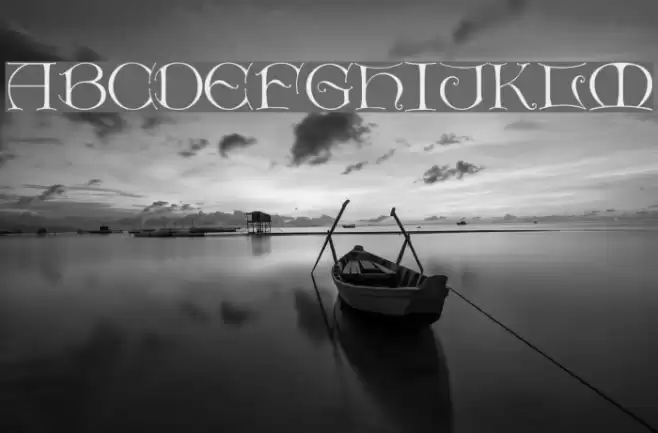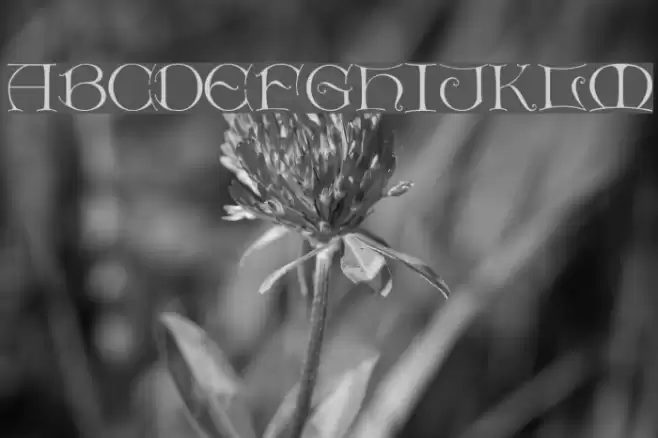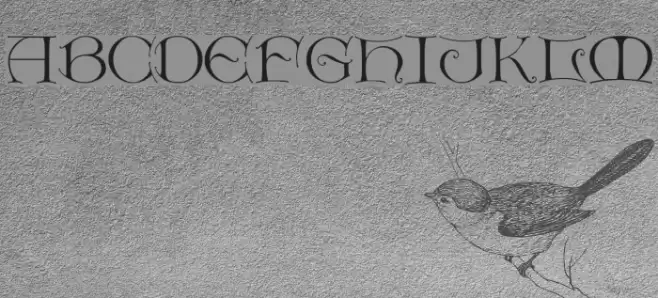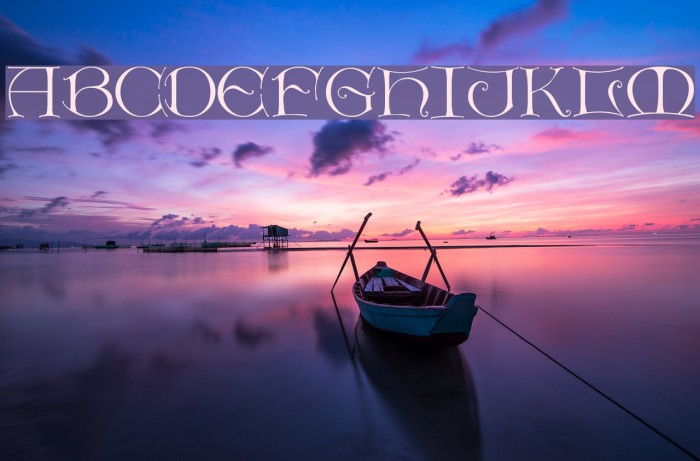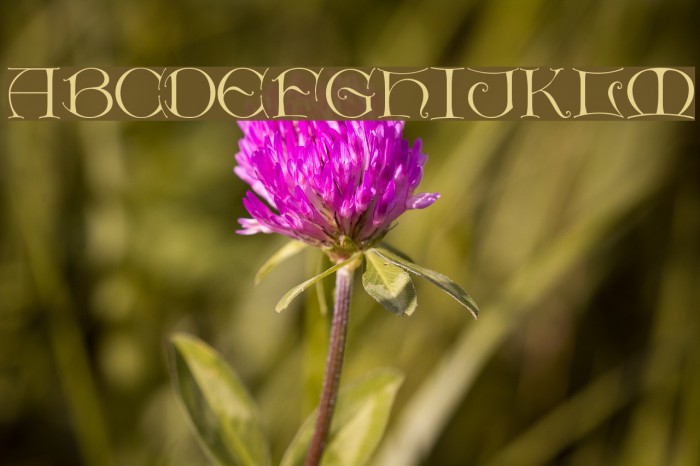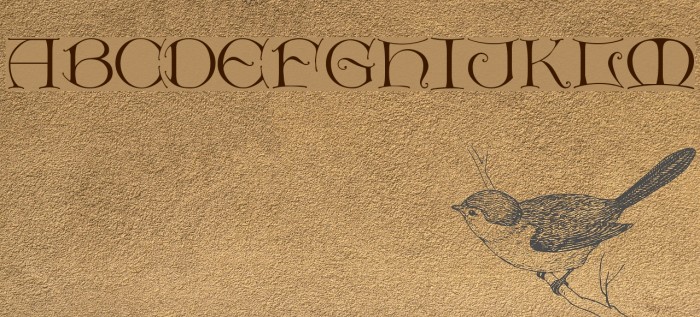
DieterCaps Font
DieterCaps Description
This font features an elegant and decorative style with a distinct flair in its uppercase letters. Each character is adorned with intricate curves and flourishes, giving it a sophisticated and artistic appearance. The design is reminiscent of classic calligraphy, with a modern twist that adds a unique charm. The strokes are moderately thick, providing a balanced contrast that enhances readability while maintaining its decorative essence. This font is perfect for projects that require a touch of elegance and creativity.
An elegant, decorative font with intricate curves and a classic calligraphic style from Uncategorized fonts.
- Proposed Projects: Ideal for wedding invitations, luxury branding, artistic posters, and decorative headlines.
- Overall Style: Classic, Decorative
- Use Case: Headlines, Logos, Invitations